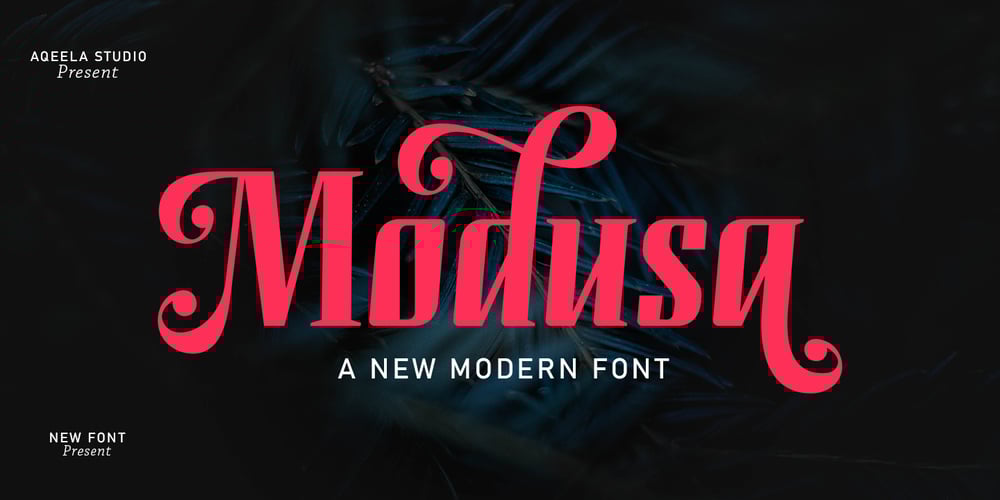
Modusa
Modusa font
Modusa Font Family was designed by Muhammad Nasir and published by Aqeela Studio. Modusa contains 1 styles and family package options. Modusa is a very fancy display font. Expertly designed to be a true favorite, this font has the potential to take your every creative idea to the highest level!Based on the Lunda typeface first created by Karl Erik Forsberg, in 1941.thank you